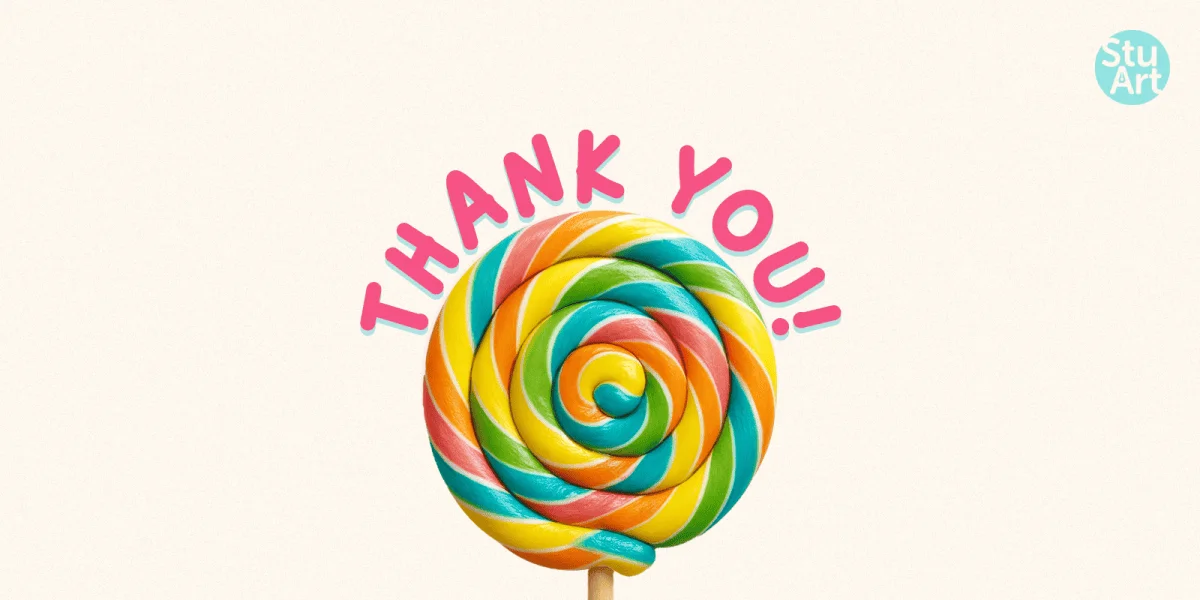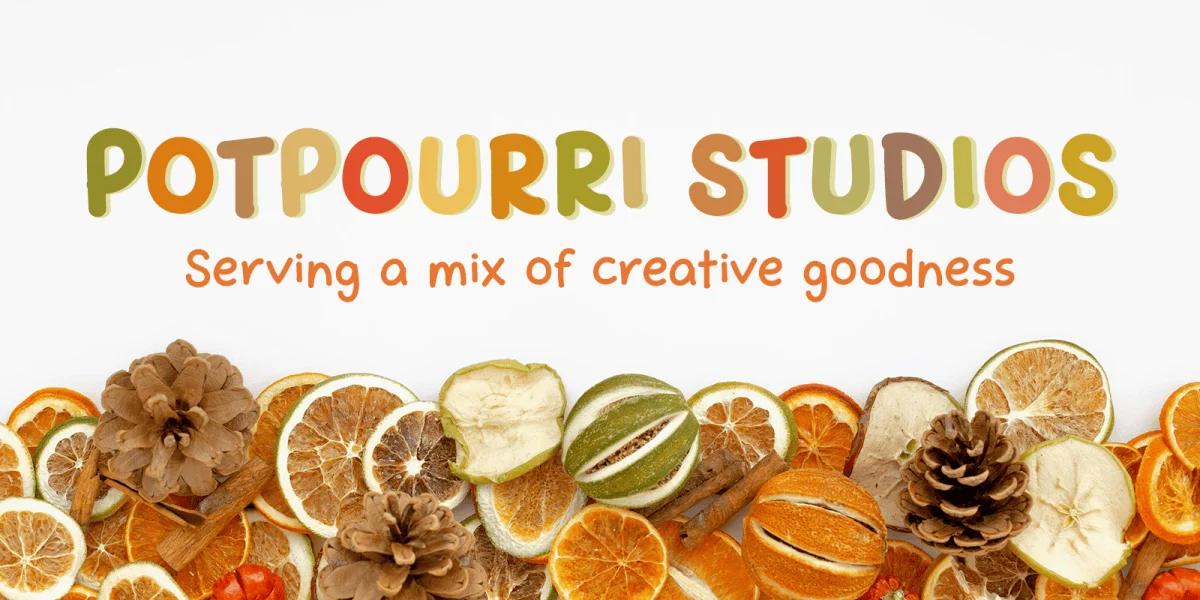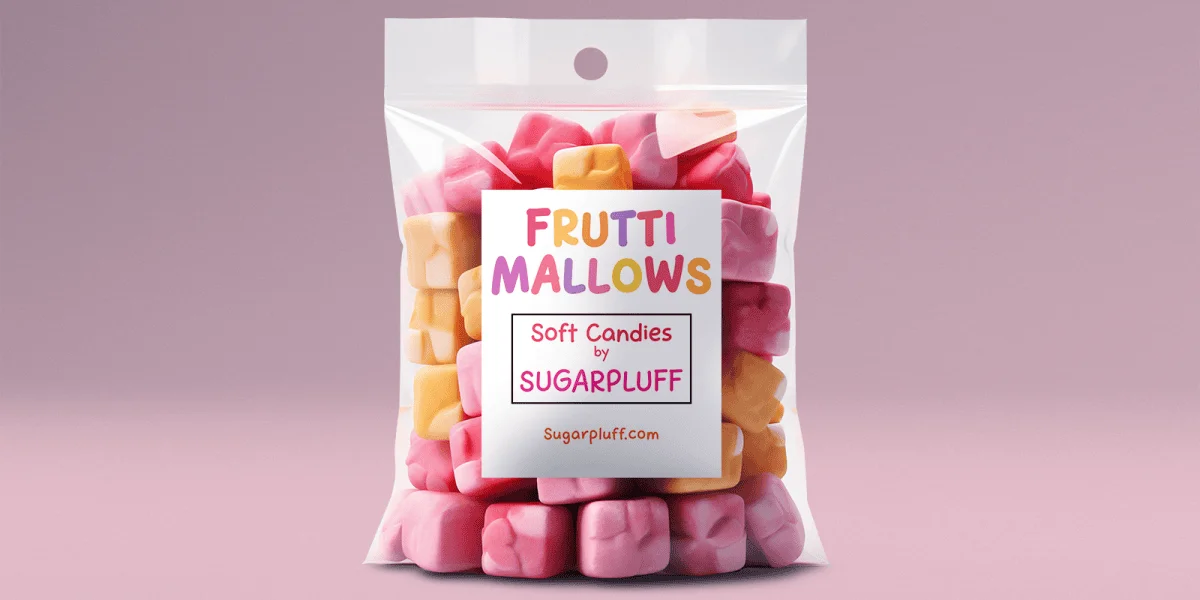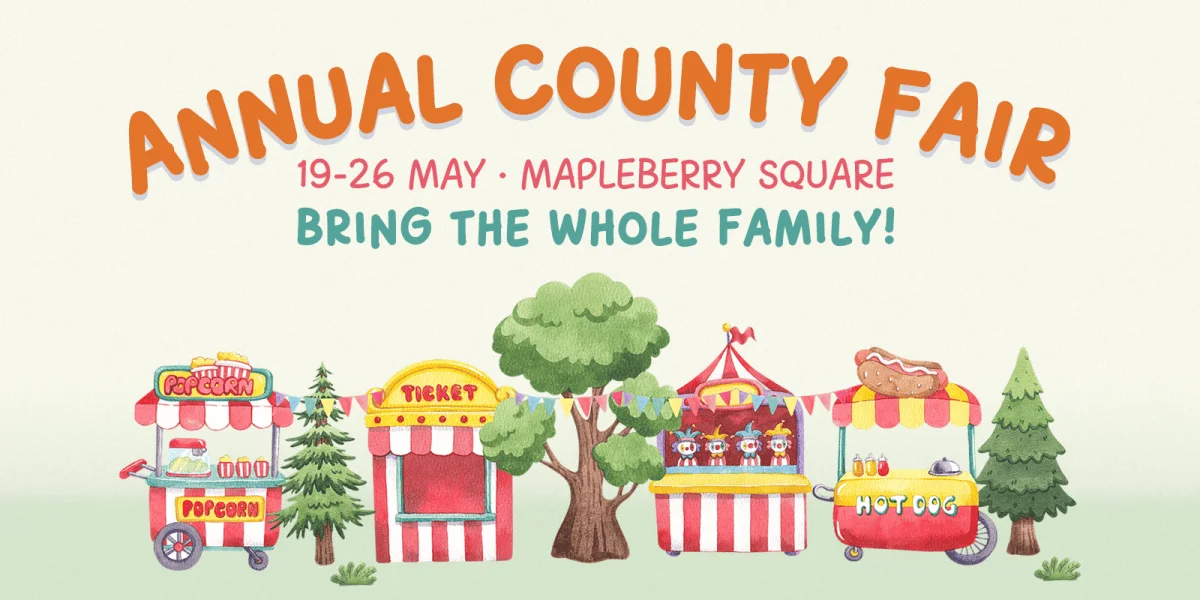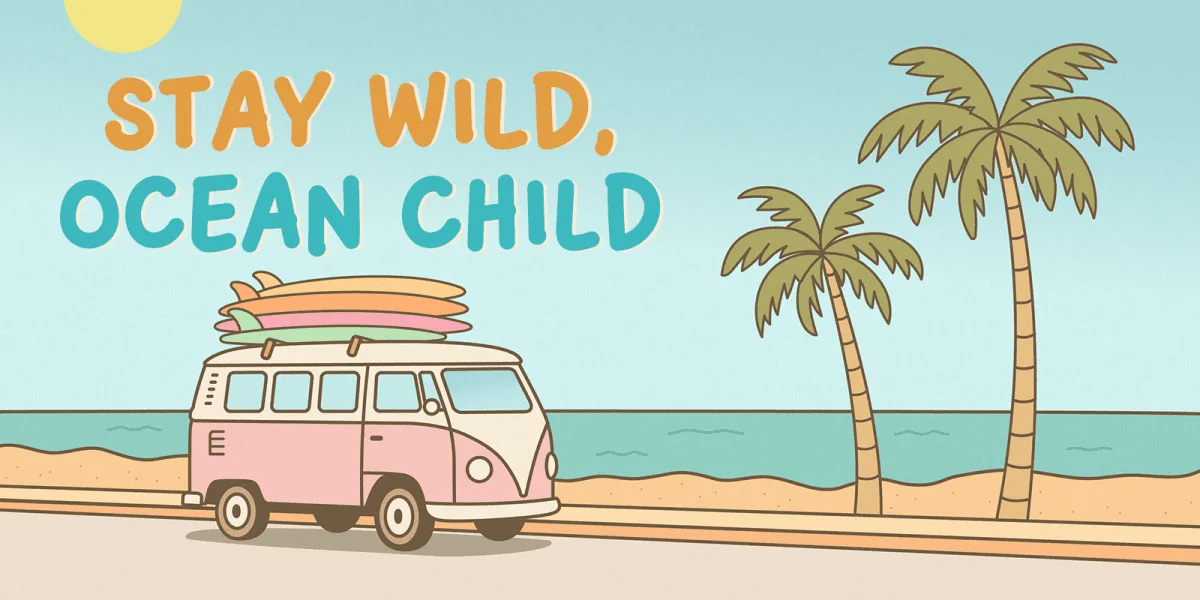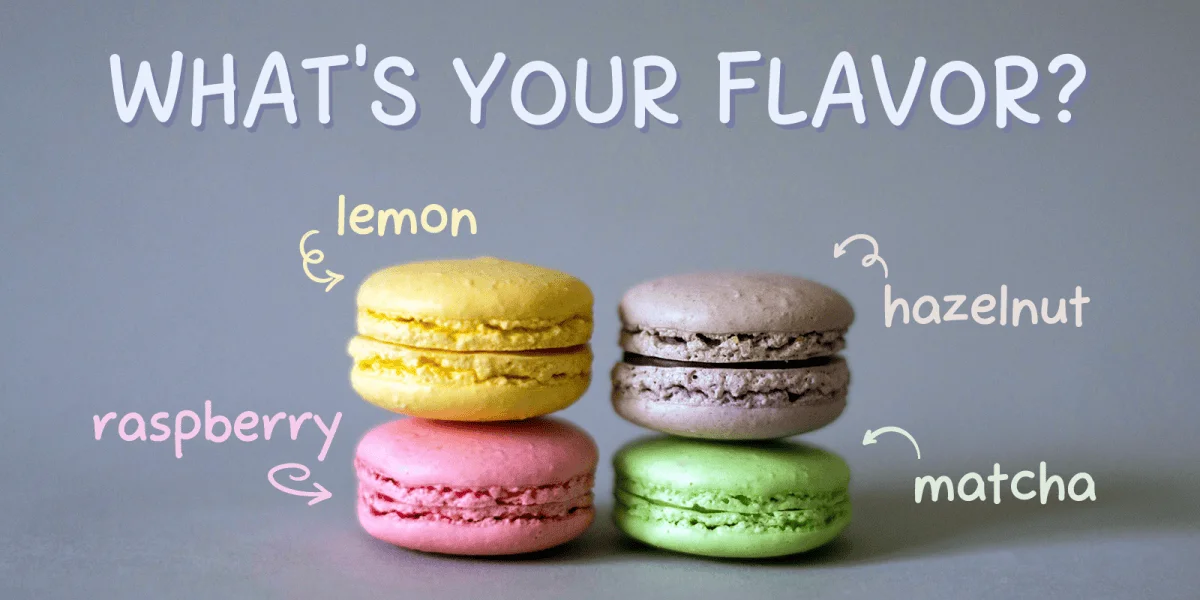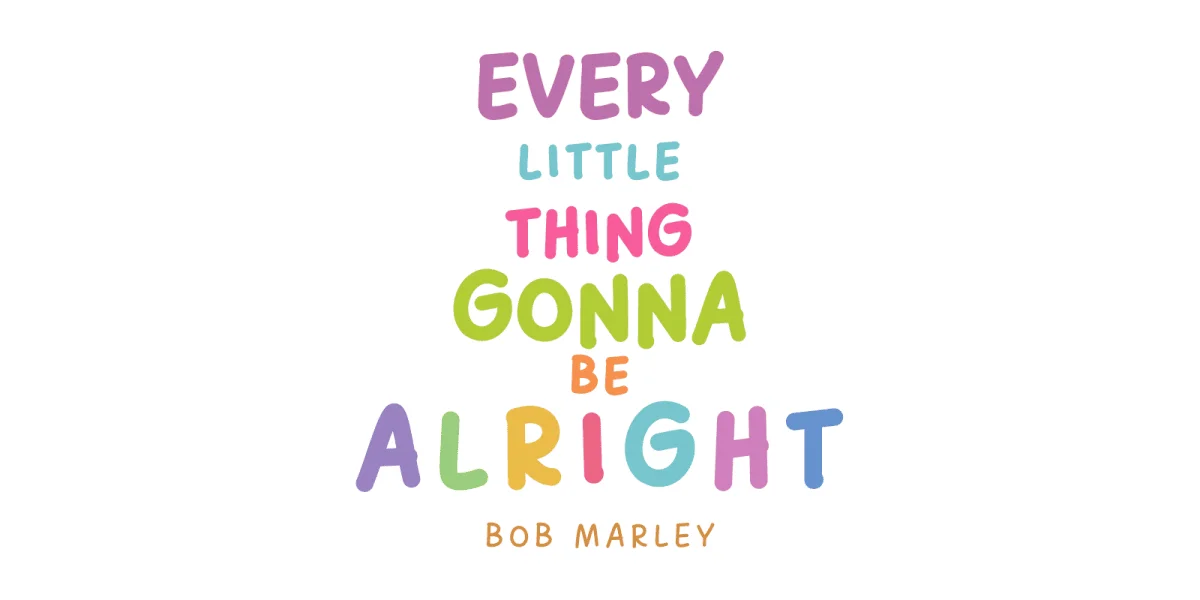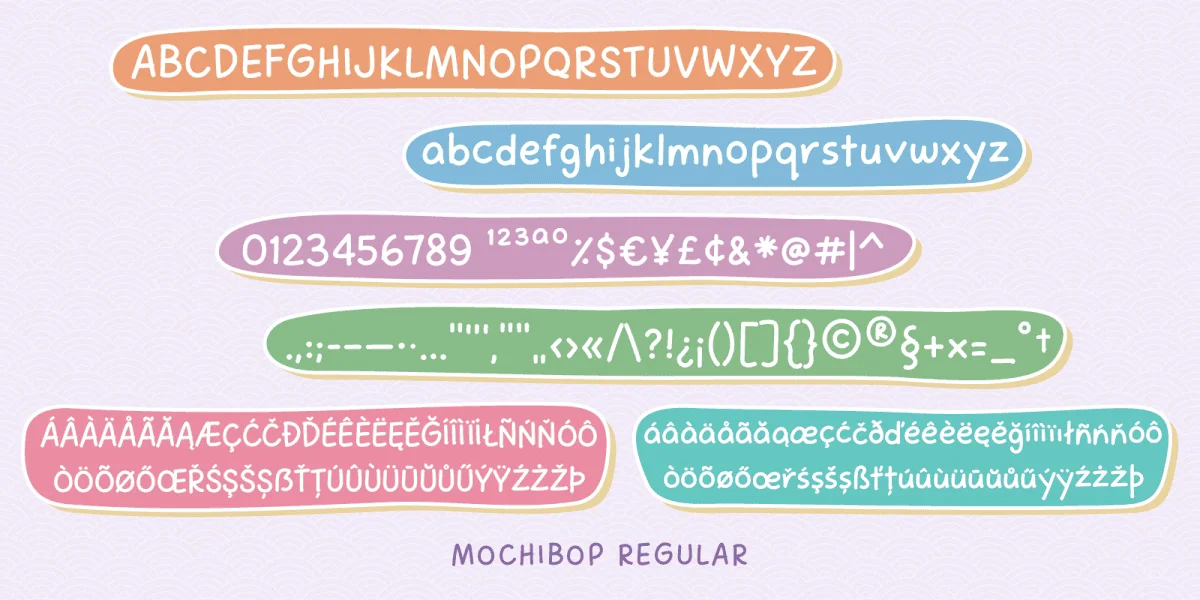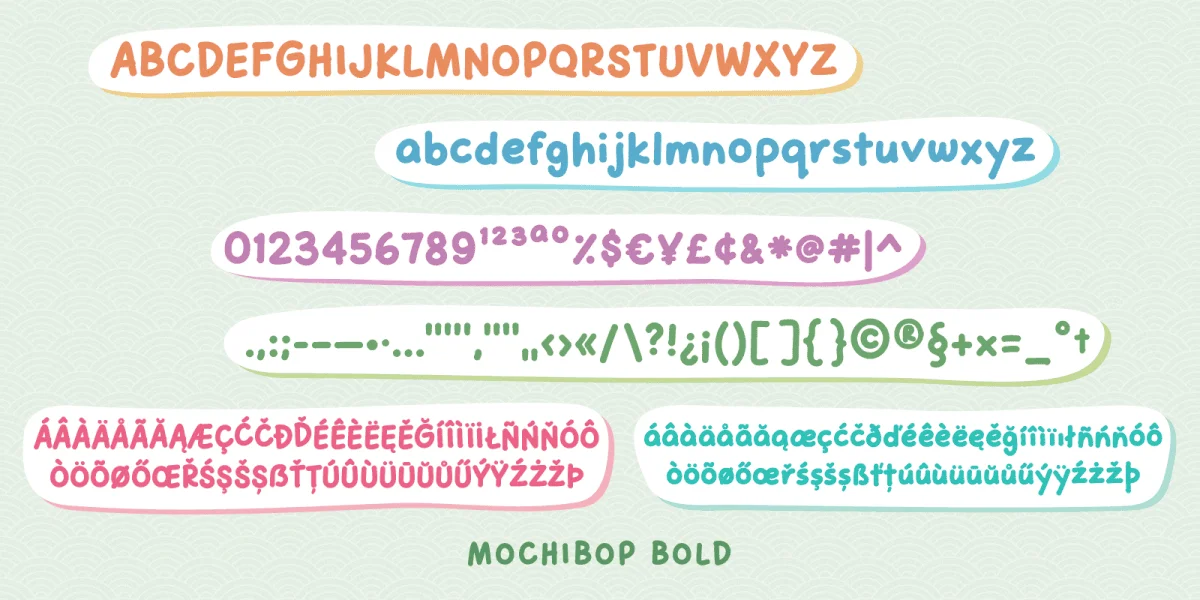
Say hello to Mochibop – a bouncy handwritten font that’s soft like mochi and full of playful charm.
Mochibop is a rounded, bouncy handwritten font that brings cozy joy and bubbly personality to everything from digital stickers to children’s books. With chunky, marshmallow-like letterforms and a smooth rhythm that flows naturally, it’s like your handwriting got a hug from a mochi. 🍡💕
Whether you’re designing for print or pixels, Mochibop is a fun and friendly font that’s bold, polished, and irresistibly cute.
🧡 Why you’ll love Mochibop:
✨ Rounded, ultra-soft strokes that feel approachable and joyful
✨ Playfully bouncy letterforms that give your text a hand-crafted feel
✨ Clean and easy-to-read even at small sizes
✨ Designed for both digital and print use
✨ Perfect for headers, quotes, labels, and cozy sticker text
🎯 Mochibop is perfect for:
✨ Children’s books, worksheets, flashcards, and educational printables
✨ Printable stickers, labels, and journaling pages
✨ T-shirts, tote bags, and fun packaging designs
✨ Logos for kawaii brands, dessert shops, or toy stores
✨ Greeting cards, event invites, scrapbooking
✨ Eye-catching social media graphics with a cute, happy vibe
Mochibop is more than just a font—it’s a vibe. Fun, flexible, and packed with personality, it’s your go-to for designs that smile back.